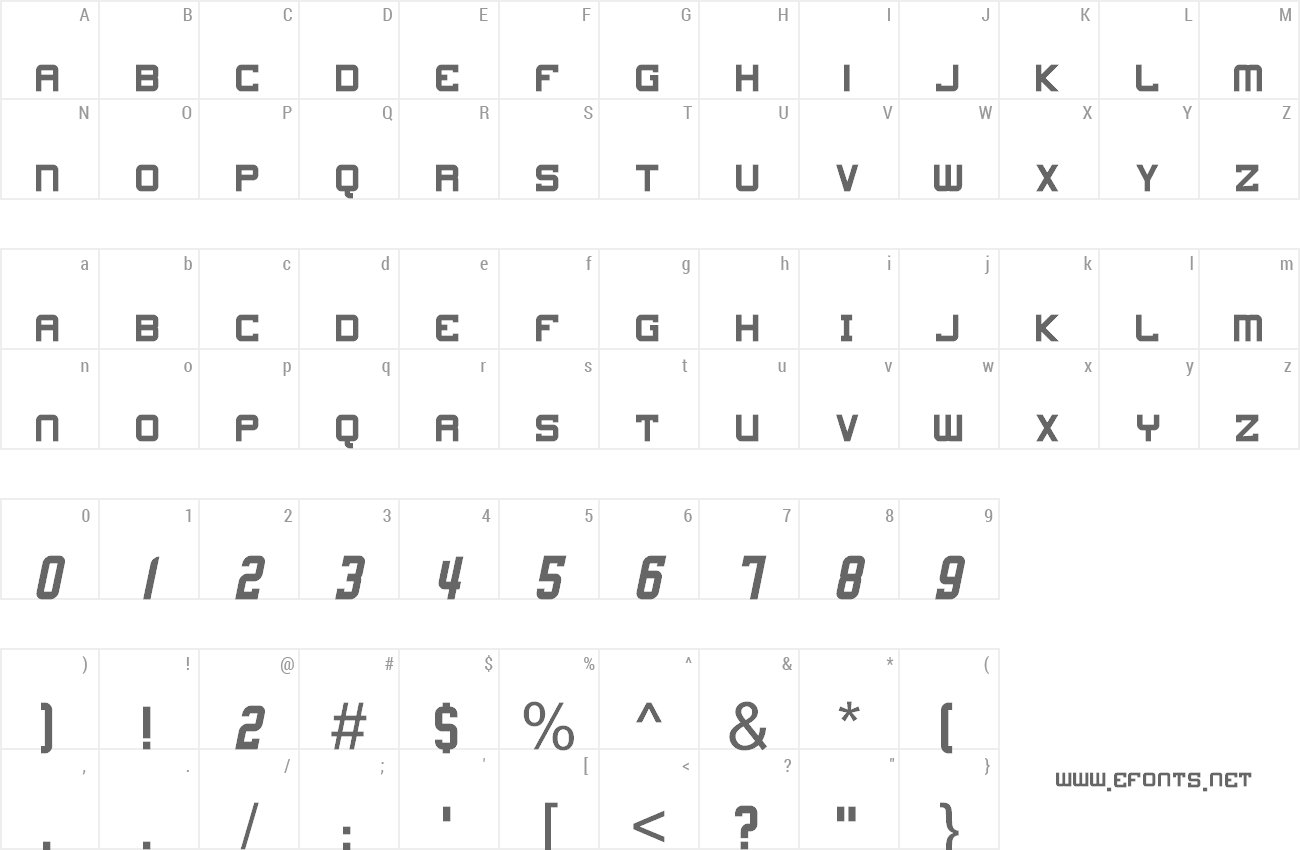
| Font name: | 4th and Inches |
| Author: | Abdulmakesfonts |
| Note by Abdulmakesfonts | |
| Based on the lettering and numbering used by Russell Athletic on many high school, college, and pro sports jerseys in the USA. I couldn't find any information on it, so I made my own version. |